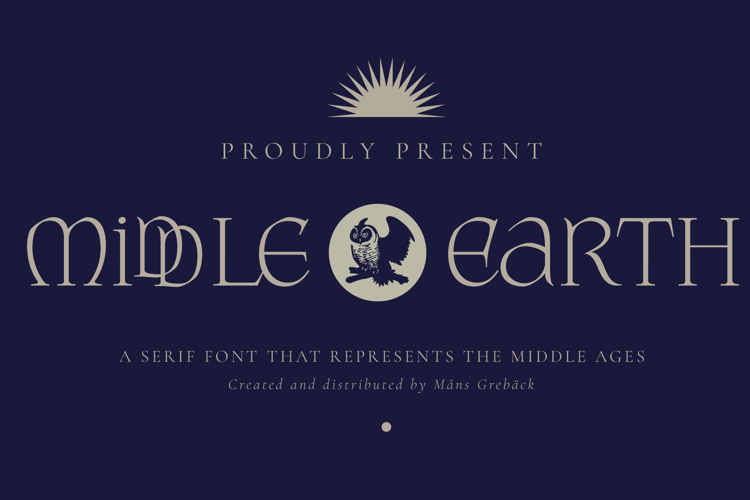
Middle Earth Font
With the historic charm of ancient manuscripts and the ethereal beauty of elven realms, Middle Earth typeface weaves tales of valor and legends.
Its calligraphic allure is accentuated by rounded contours, reminiscent of Tolkien's enchanted worlds.
Use parentheses characters ( ) { } [ ] to make symbols such as wolves, eagles or lions.